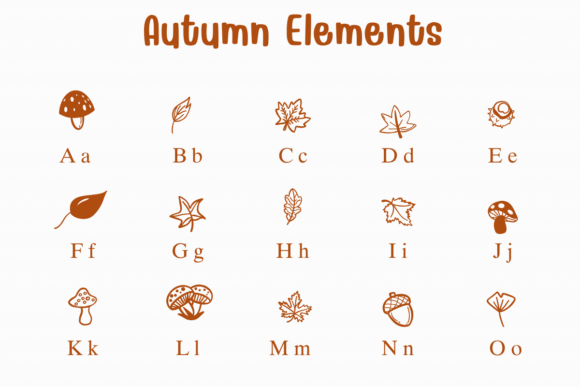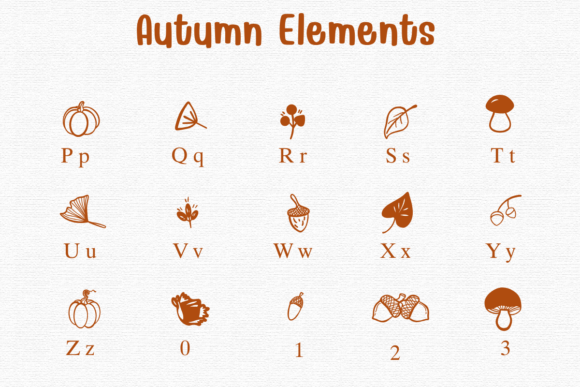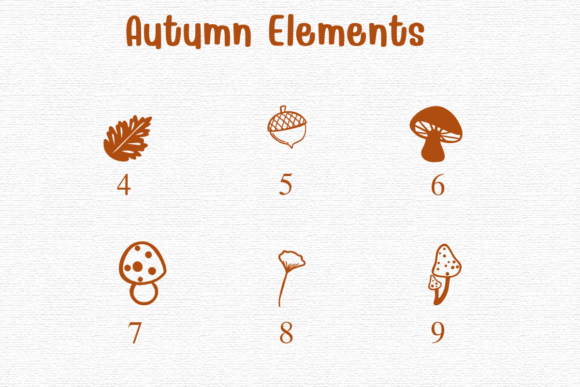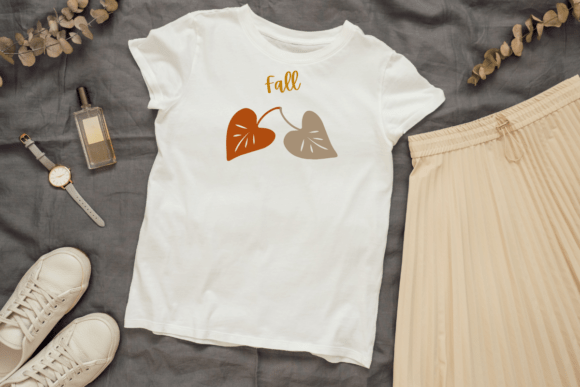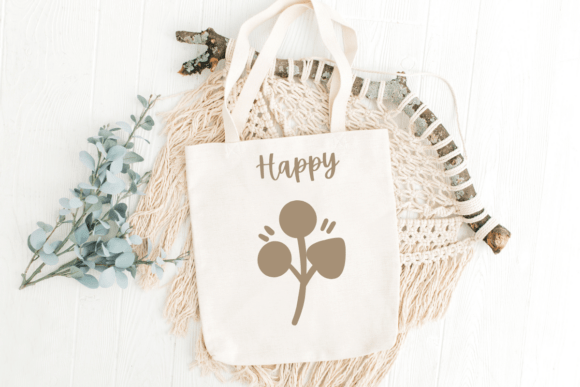
Cozy Up with Autumn Elements Font: A Designer’s Delight
I’ll never forget the moment I was working on a fall-themed project for a client, and I just couldn’t find the right font to bring the design together. I had a vision of warm, cozy elements that would evoke the feeling of crunching leaves and sipping hot apple cider, but every font I tried seemed to fall flat. That’s when I stumbled upon the Autumn Elements Font, and it was love at first sight! ✨
As a designer, I’m always on the lookout for fonts that can help me bring my creative vision to life. Here’s what I think about Autumn Elements:
- ✅ Delightful dingbats: This font is packed with hand-drawn seasonal icons like acorns, pumpkins, leaves, and mushrooms that are perfect for fall-themed crafts, planners, cards, and sublimation projects.
- ✅ Easy to use: The font is surprisingly easy to use, even for those who are new to dingbats or symbol fonts.
- ✅ Cozy charm: The Autumn Elements Font brings a level of cozy charm to all your autumn creations that’s hard to find with other fonts.
- ⚠️ Limited character set: As a dingbats font, Autumn Elements has a limited character set, which means it’s not suitable for body text or long blocks of writing.
- 🤔 Requires some exploration: With so many glyphs and symbols to choose from, it can take some time to get familiar with the font and find the perfect elements for your design.
One of the best things about the Autumn Elements Font is its support for OpenType features and glyphs. Here are a few tips for getting the most out of these features:
- Use the Glyphs panel to access the various symbols and glyphs that come with the font.
- Experiment with different Stylistic Alternates to find the perfect look for your design.
- Don’t be afraid to try out different Ligatures and Swashes to add some extra flair to your design.
The Story Behind Autumn Elements
Autumn Elements was designed with one goal in mind: to bring a touch of cozy charm to your fall-themed designs. The designer, a self-proclaimed fall enthusiast, spent countless hours hand-drawing each glyph and symbol to ensure that the font felt authentic and inviting. From the intricate details on the acorns to the soft, rounded edges of the leaves, every element was crafted with love and care.
- Q: What type of projects can I use Autumn Elements for?
- A: Autumn Elements is perfect for fall-themed crafts, planners, cards, and sublimation projects.
- Q: Is Autumn Elements a script font?
- A: No, Autumn Elements is a dingbats font featuring hand-drawn seasonal icons.